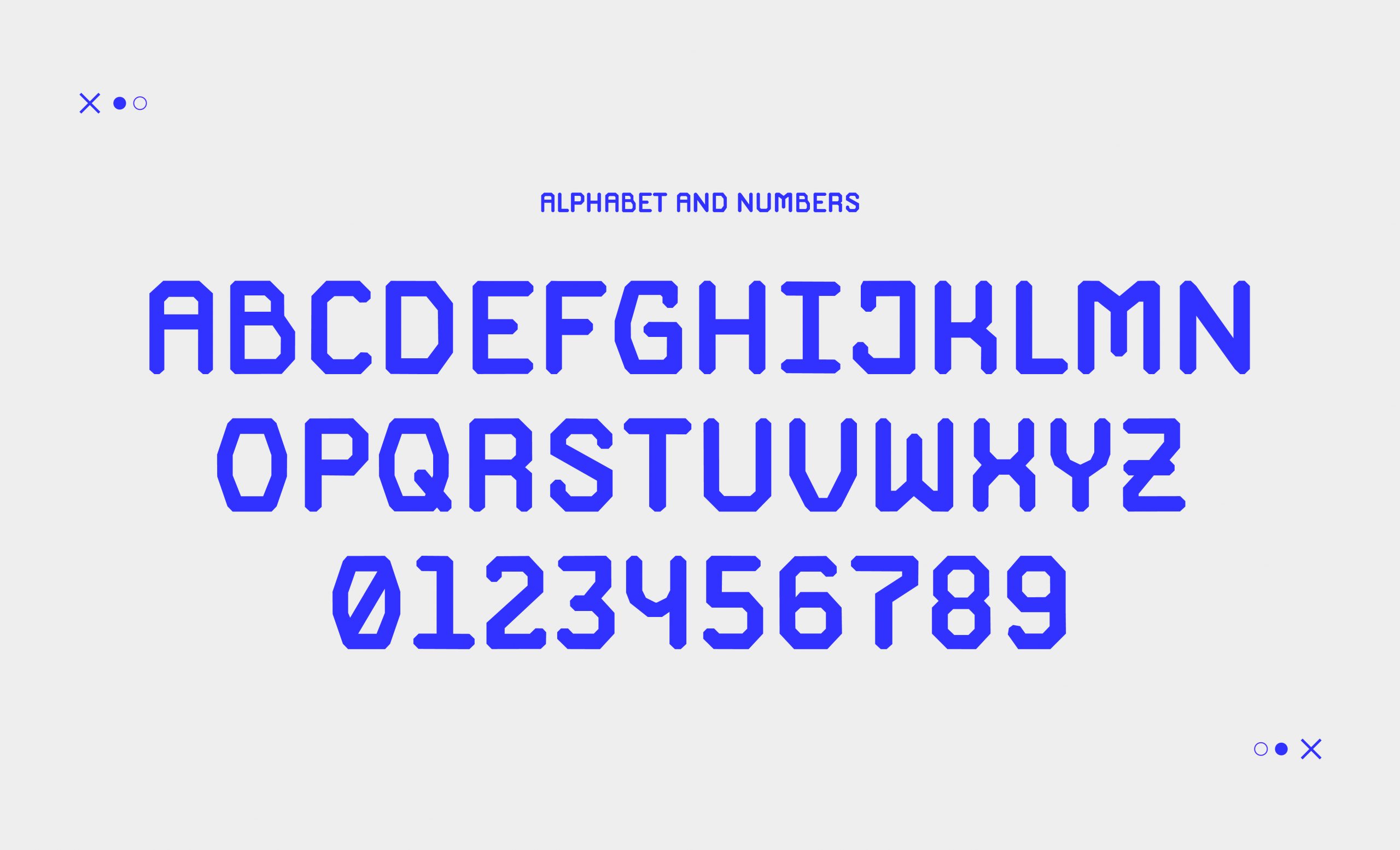
Avro Gadro Font
Avro Gadro Font is a modern sans serif typeface with both a dynamic and industrial look. Constructed with a modular system, Avro Gadro Font is perfect in big size, as well as small size. It includes a full set of letters (uppercase), numerals, and symbols. This is the demo version.